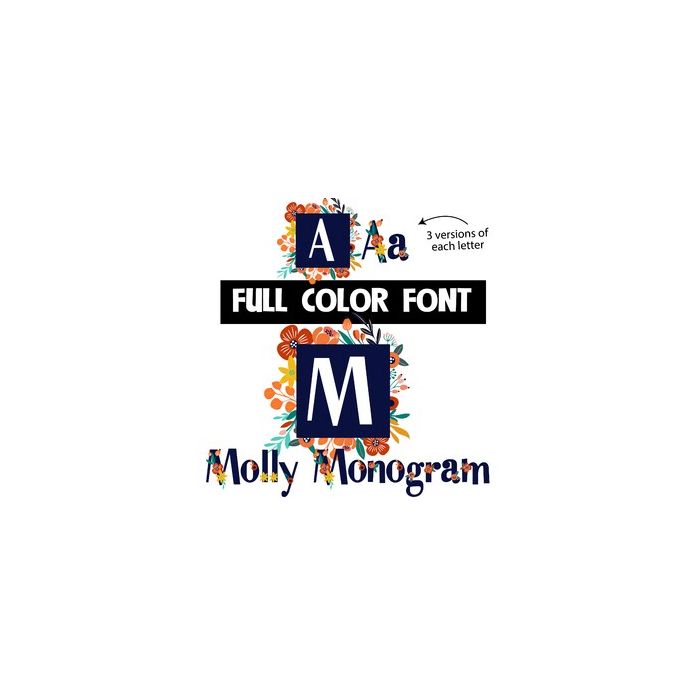
Molly Monogram Color Font
This full-color font features beautiful flowers throughout. Use the lowercase for a floraled lowercase without boxes and access a true upper "alt" case through your system's character map or Silhouette's glyph map. This font works best for titles, displays, posters and more. Please note color fonts will show as black in non compatible programs. This font type is compatible with Silhouette Studio